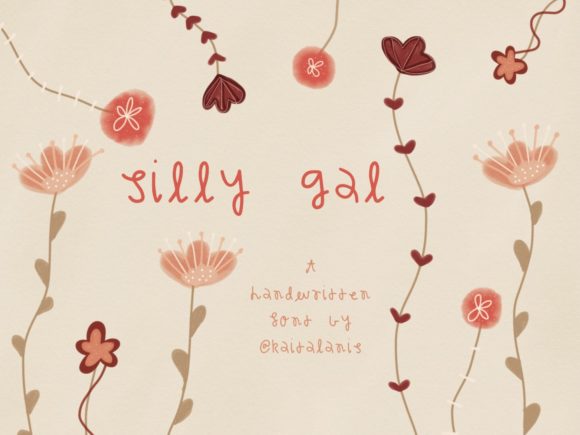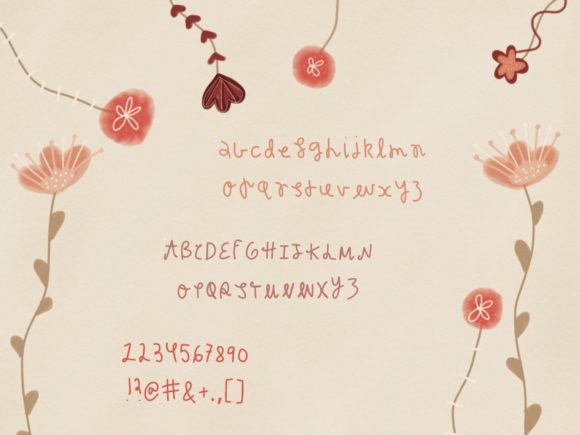
HomeScript FontsSilly Gal Font Script Fonts Silly Gal Font FacebookXPinterestWhatsApp Processed with VSCO with g9 preset Silly Gal Font Poster 2 About Silly Gal Font Silly Gal is a messy and silly font perfect for any quirky project. Fall in love with its irregular nature. DOWNLOAD NOW People also explored Thingking Font Garnite Font Baby Lalisa Font Cute Monster Font Safiar Font Valentine February Font Vampire Font Font Goldside Font Kids and Baby Font 294 0 TagsSilly Gal Font Previous articleCarolissa FontNext articleFerishley Sunshine Font LEAVE A REPLY Cancel reply Comment: Please enter your comment! Name:* Please enter your name here Email:* You have entered an incorrect email address! Please enter your email address here Website: Save my name, email, and website in this browser for the next time I comment. Personal Use Free Milda Personal Use Free Read more about this font Rollayka Personal Use Free Read more about this font Charletto Personal Use Free Read more about this font Retro Free Personal Use Free Read more about this font BLOG Free Fonts Risk: Why Free Fonts Can Be Dangerous for Designers Free Fonts Risk: Why Free Fonts Can Be Dangerous for Designers Using free fonts is a common practice in web and graphic design. However, the... To increase your work productivity, choose the most readable fonts. How to Install and Use Fonts on Windows, macOS, and Web Projects How to Cut Any Font on Cricut: Convert a Font to SVG (Free)